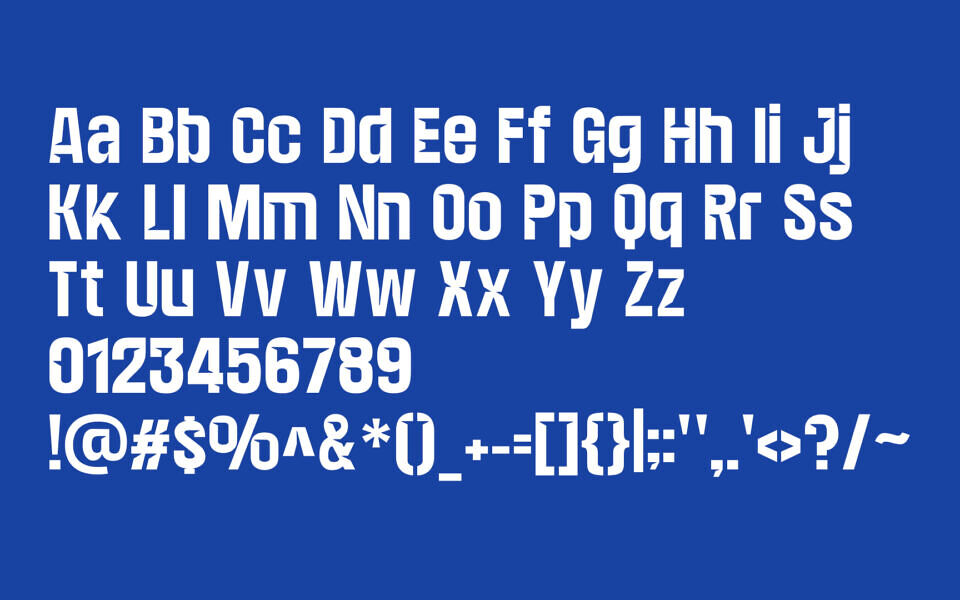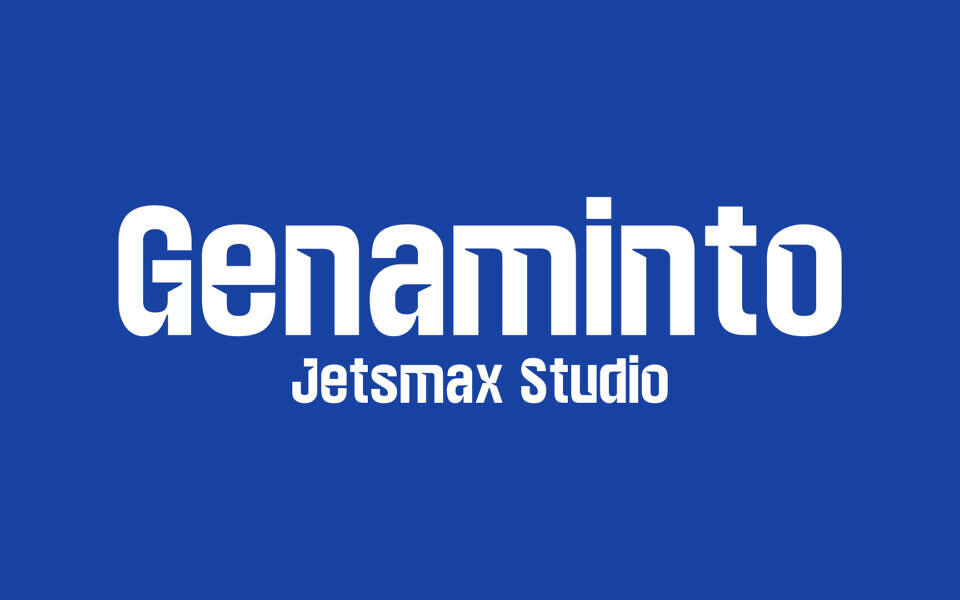
Genaminto Font
Genaminto is a bold and expressive display typeface defined by its sharp ink traps and distinctive slash cuts. Designed to stand out, it’s tailored for futuristic events, e-sports branding, and digital media with an extreme or high-tech aesthetic.
Created by Khairil Anwar, a type designer based in Makassar, Indonesia, Genaminto delivers a striking visual presence—perfect for headlines, logos, and any design that demands attention. Its aggressive yet refined construction makes it ideal for pushing boundaries in modern typography.
Designed by: Jetsmax Studio